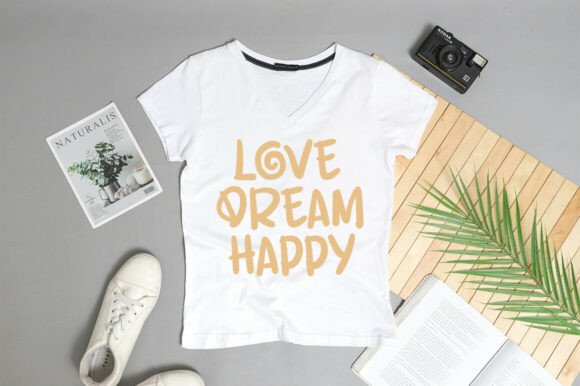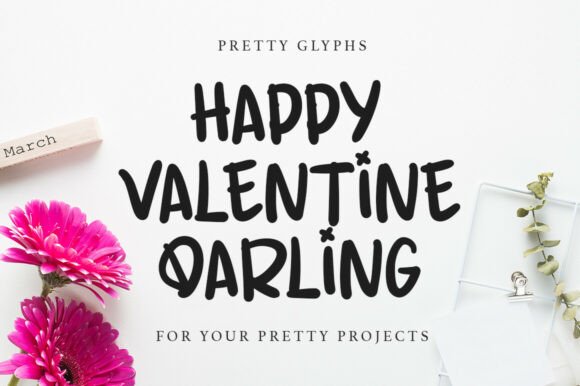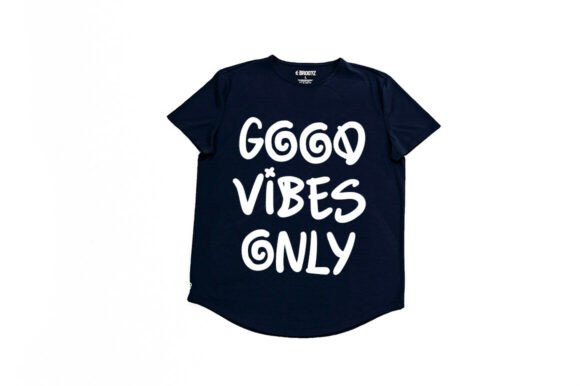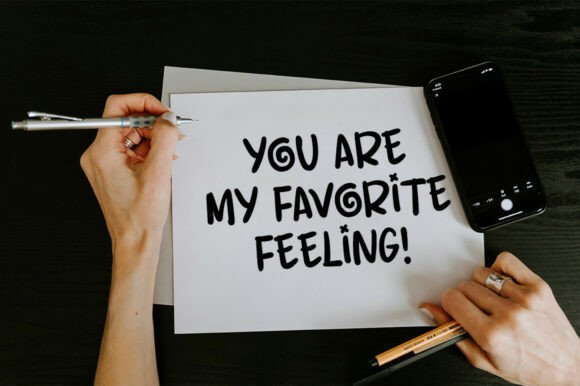
Introduction to Junkie Retro Font
Embrace the eclectic energy of the past with Junkie Retro font, a bold and expressive typeface that captures the spirit of mid-century pop culture and retro signage.
This typeface features unique, exaggerated terminals and swirling flourishes, such as the spiral on the letter โGโ and the playful โiโ dots, making the Junkie Retro typeface an instant focal point It is designed for those who want to break away from the mundane and inject a sense of โorganized chaosโ into their visual storytelling.
Key Features of Junkie Retro Font
Why Choose Junkie Retro Font?
Junkie Retro Font offers exceptional quality and versatility, making it a valuable addition to your design toolkit. Whether you’re creating for personal projects or commercial use, Junkie Retro Font delivers professional results.